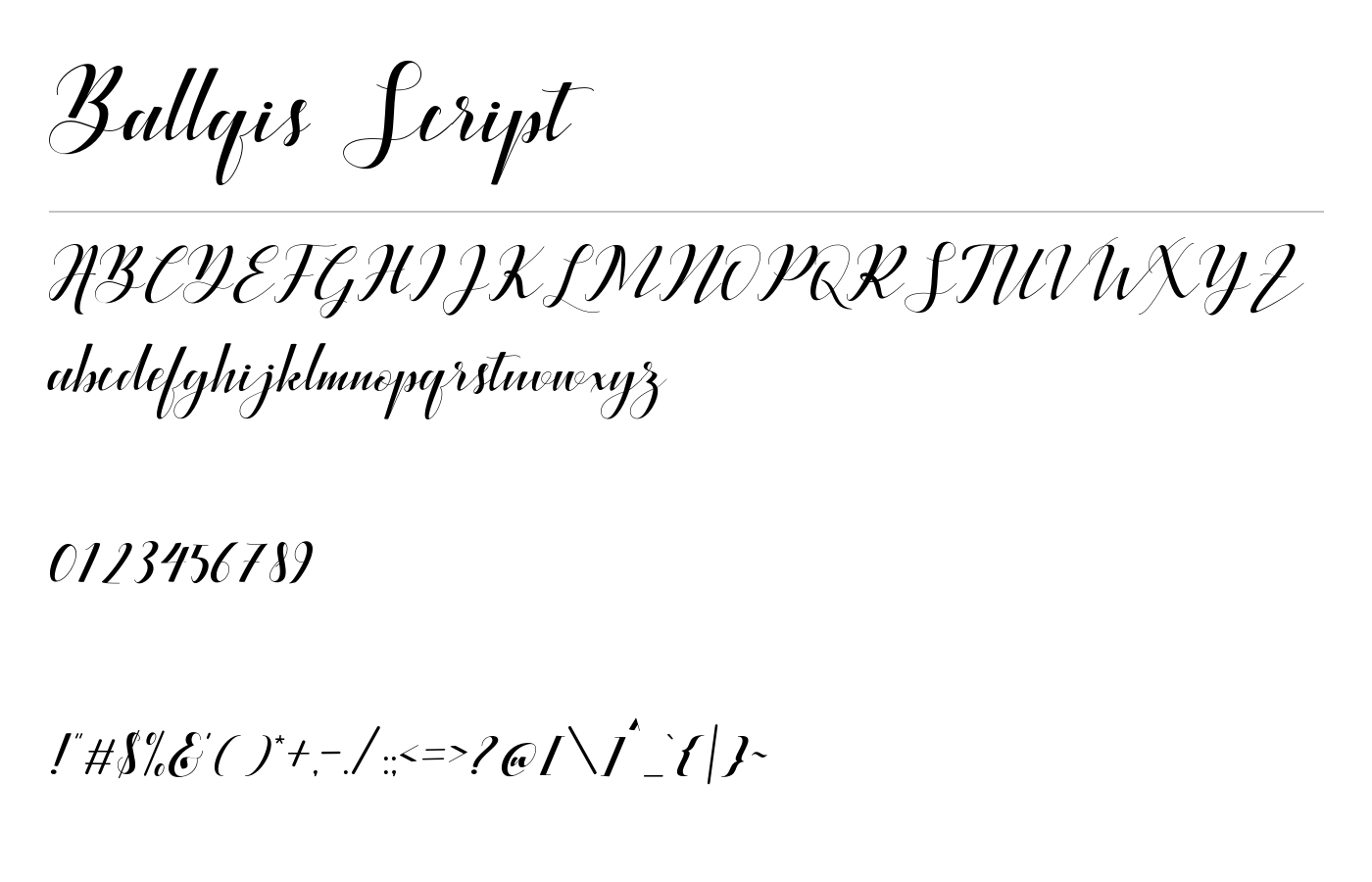
Ballqis Script is an elegant, flowing script font characterized by its refined, high-contrast strokes and delicate letterforms. Its graceful curves and slender, stylish lines give it a sophisticated, luxurious feel, making it ideal for wedding invitations, branding, and upscale editorial design where a touch of classic beauty and charm is desired. The font combines readability with ornamental flair, perfect for creating romantic and polished visual impressions.
Ballqis Script Font
About Ballqis Script Font
| Font family | Ballqis Script Font |
| Designer | Pointlab studio |